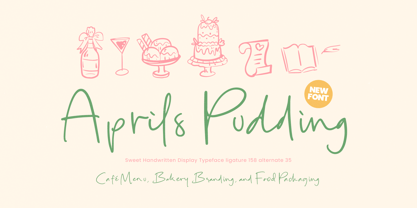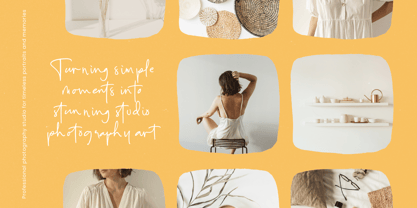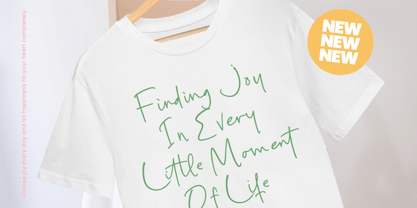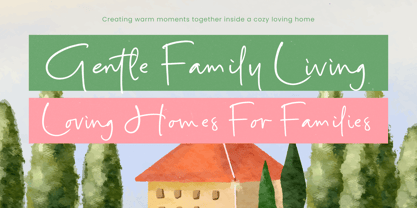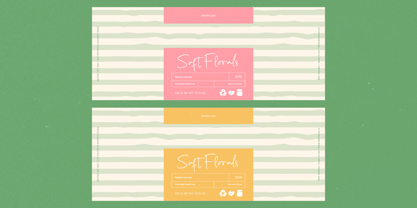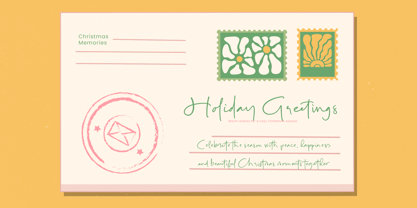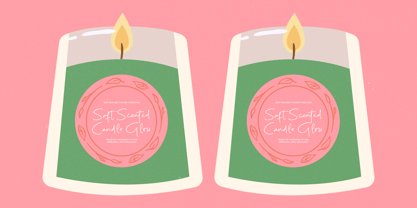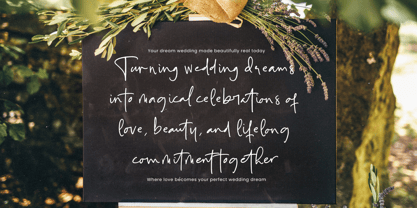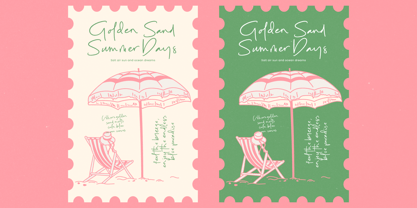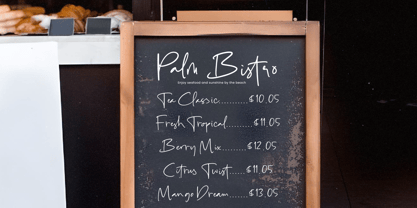
Aprils Pudding
by Stylishtype Studio
The Aprils Pudding Font Family was designed by Heru Utama Putra and published by Stylishtype Studio. Aprils Pudding contains 2 styles and family package options. More about this family
Aprils Pudding is a sweet handwritten display typeface crafted with a soft, natural flow that beautifully captures warm café aesthetics, bakery charm, and friendly food-branding personality. Designed with 158 ligatures and 35 alternates, this font delivers an organic, handwritten look ideal for menu designs, dessert packaging, recipe cards, artisan logos, cozy café signage, and any project that needs a personal, approachable handwritten touch. Its gentle stroke rhythm and playful imperfections give each letter a homemade feel, making Aprils Pudding perfect for creators who want inviting, delightful, and uplifting typography.